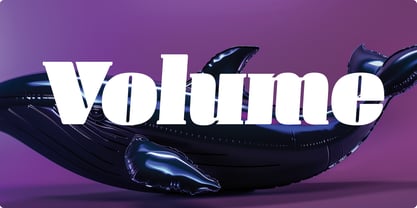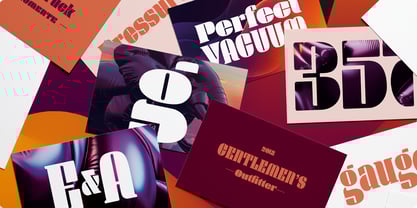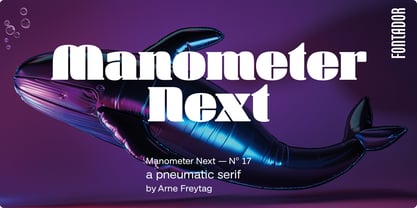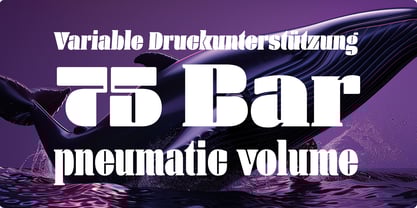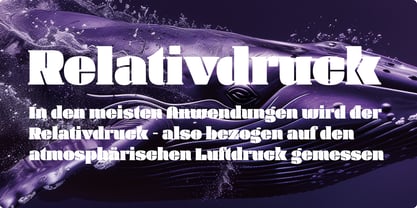
Manometer Next
by Fontador
The Manometer Next Font Family was designed by Arne Freytag and published by Fontador. Manometer Next contains 6 styles and family package options.
Manometer Next is a pneumatic ultra-black sans serif typeface with softly rounded corners and finely crafted counters. As the serif counterpart to Manometer, it combines technical strength with subtle detail, making it ideal for bold headlines, strong brand identities, and expressive typographic applications, while maintaining excellent legibility and a distinctive, confident character across print and digital media.
About Fontador
Fontador is a small type foundry based in Hamburg, founded by Arne Freytag.¶He was born in Hamburg in 1967. In 1995, he won a scholarship to study Graphic Design at the Kunstschule Alsterdamm art school in Hamburg. As a post graduate in 1998, he attended the Atelier National de Recherche Typographique in Paris. He has published various articles in Tipografica, étapes and the Typografische Monatsblätter. He has been working as a freelance typographic and graphic designer since 2000.